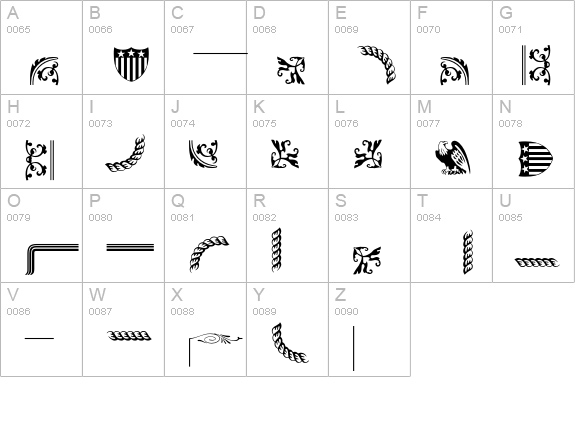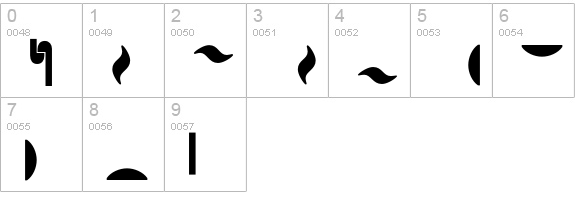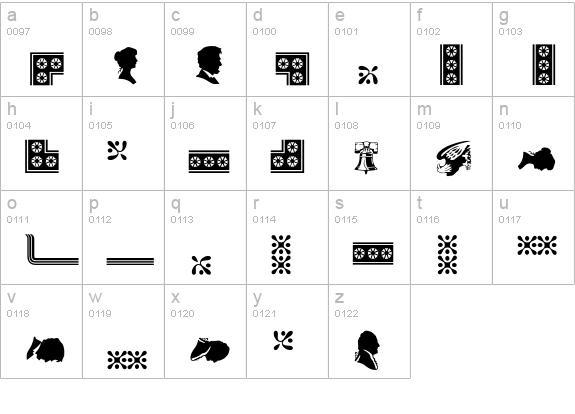
BordersOrnamentsP01 Font Details
BordersOrnamentsP01 font is a stunning collection of intricate and elegant decorative elements perfect for adding a touch of sophistication to your design projects. This font features a wide variety of ornate borders and ornaments that can be used to embellish invitations, posters, cards, and more. The exquisite details of the designs lend a classy and timeless look to any piece of work. What makes BordersOrnamentsP01 font even more appealing is that it is available for free download at FontsMarket.com. You can easily access this beautiful font and enhance your creations with its exquisite decorative elements without any cost. Add a touch of refinement and flair to your designs with the BordersOrnamentsP01 font and make your projects stand out with its intricate beauty.